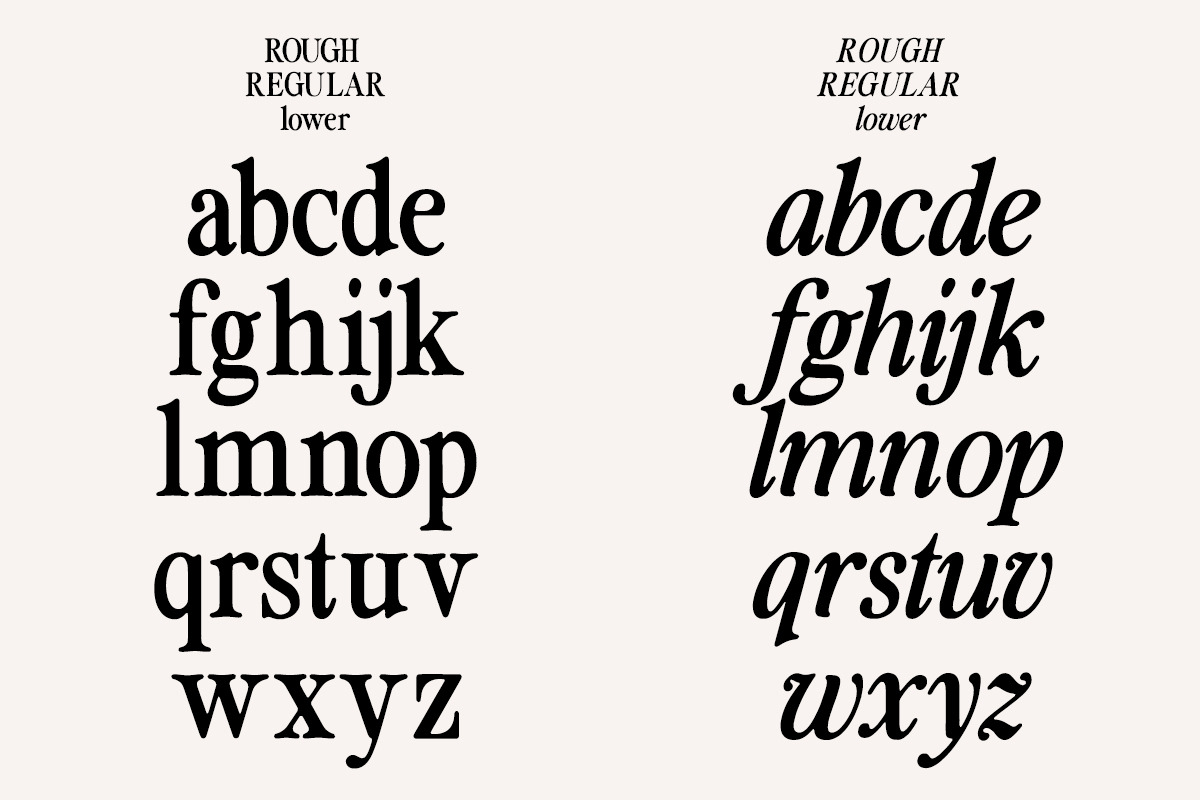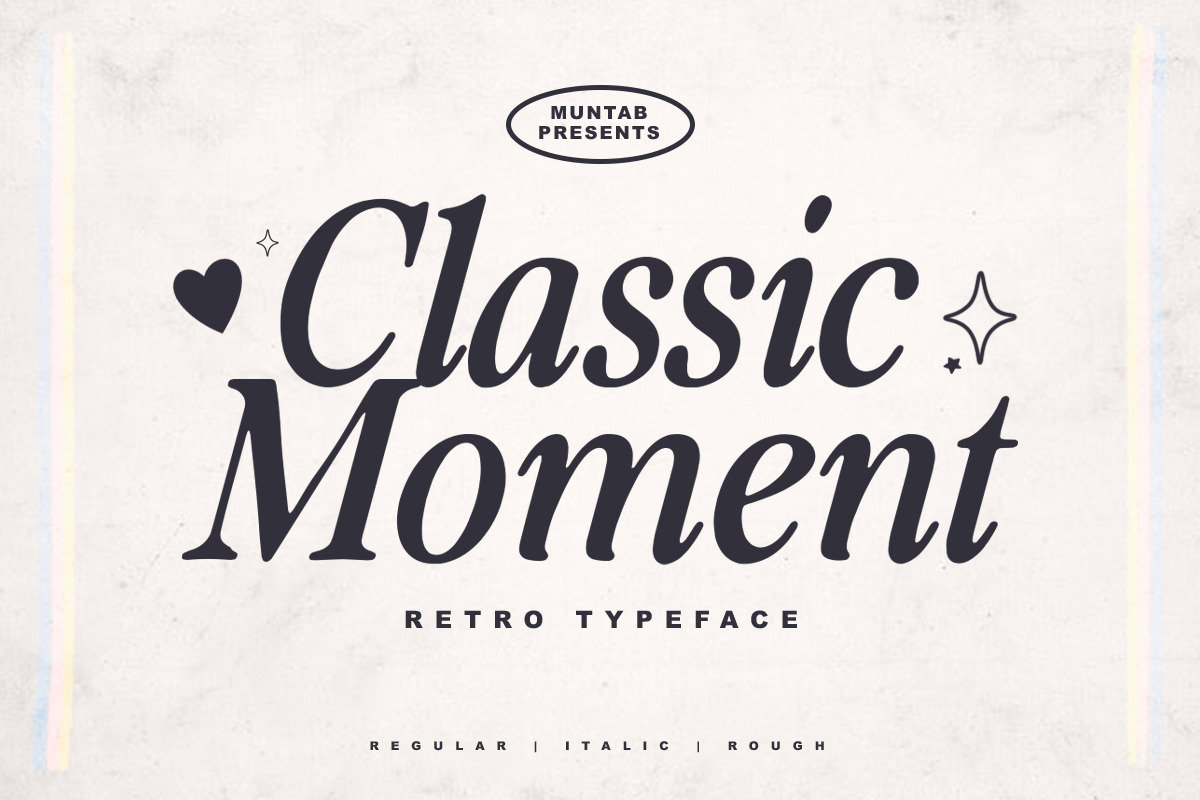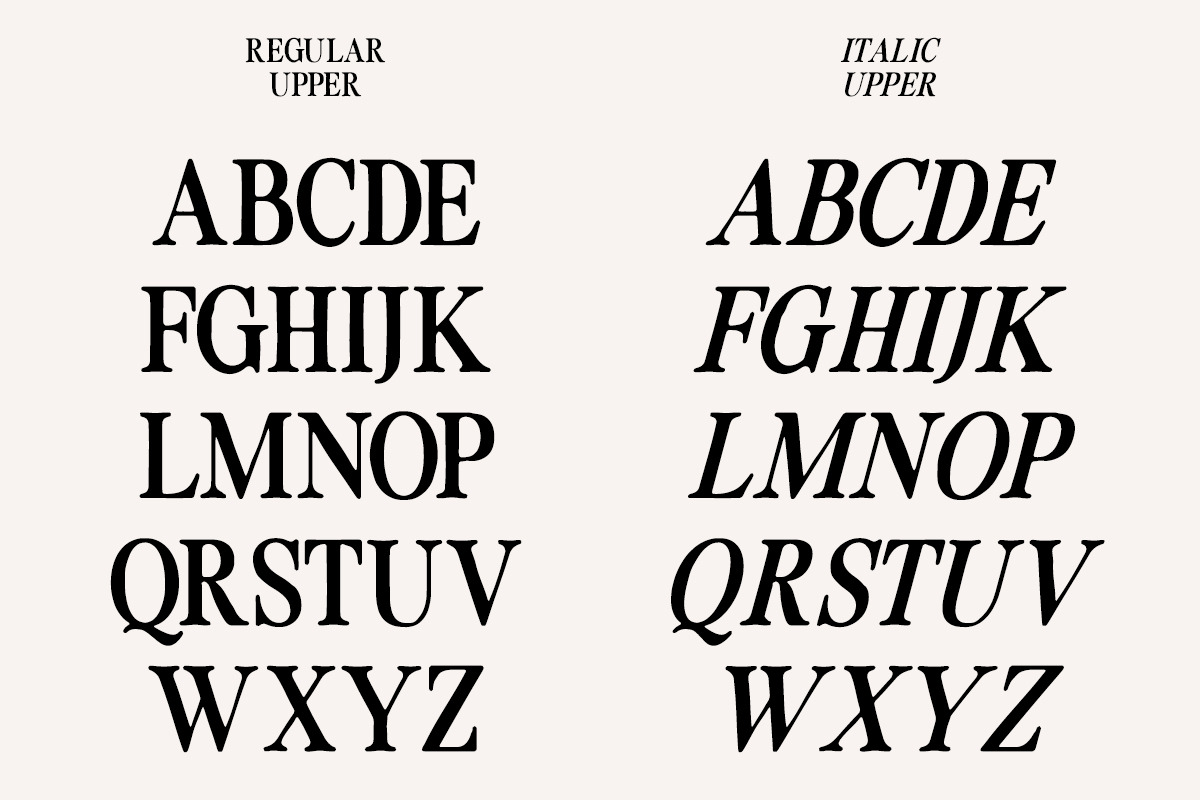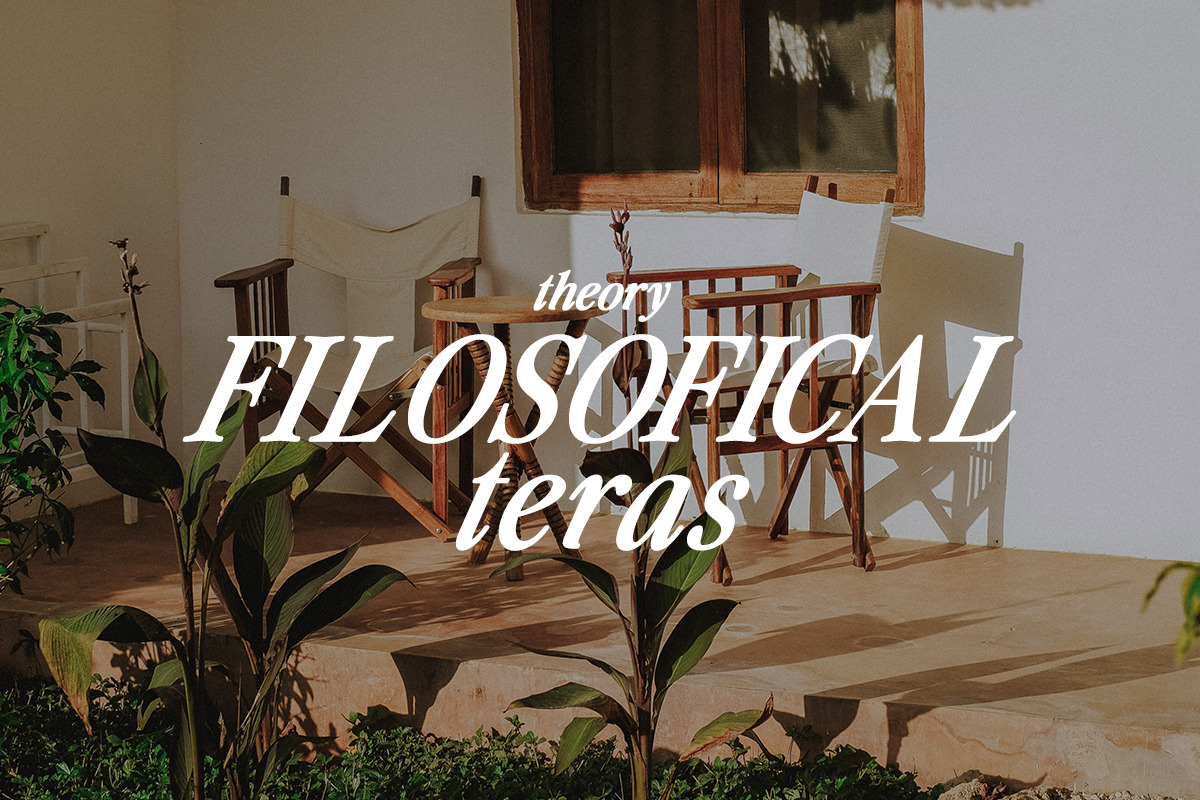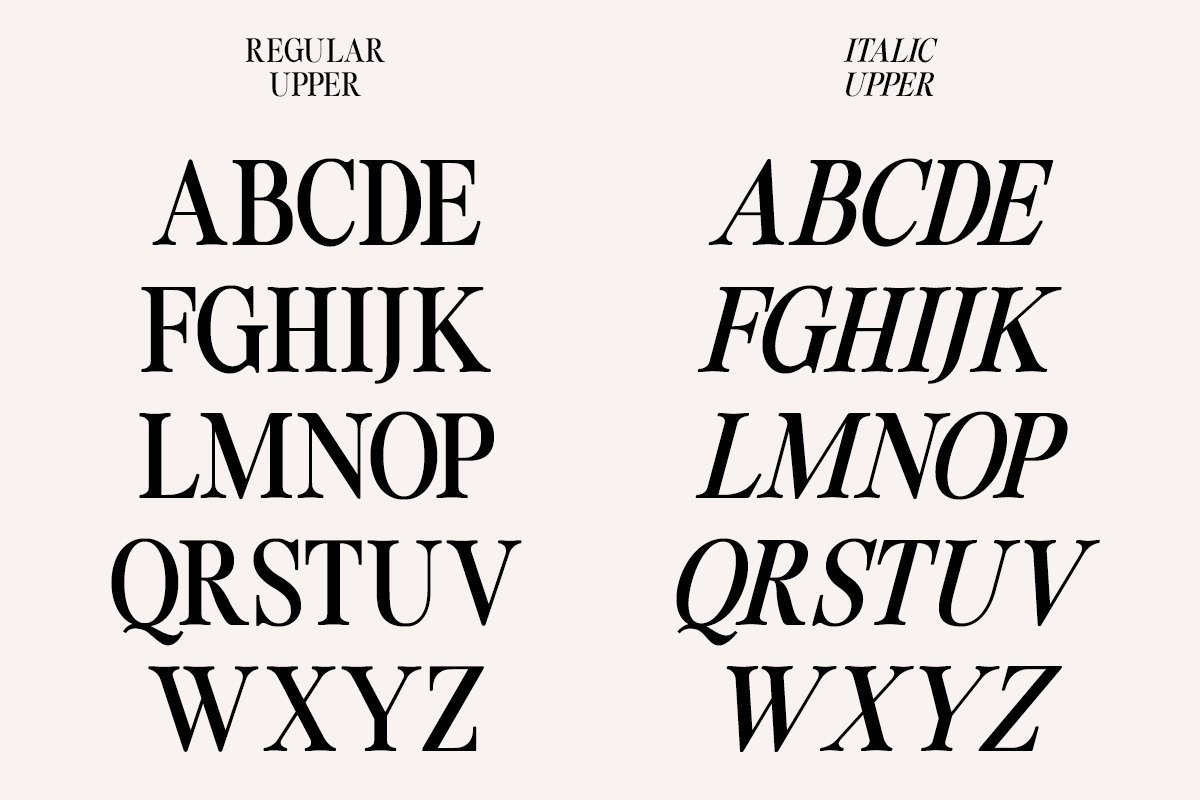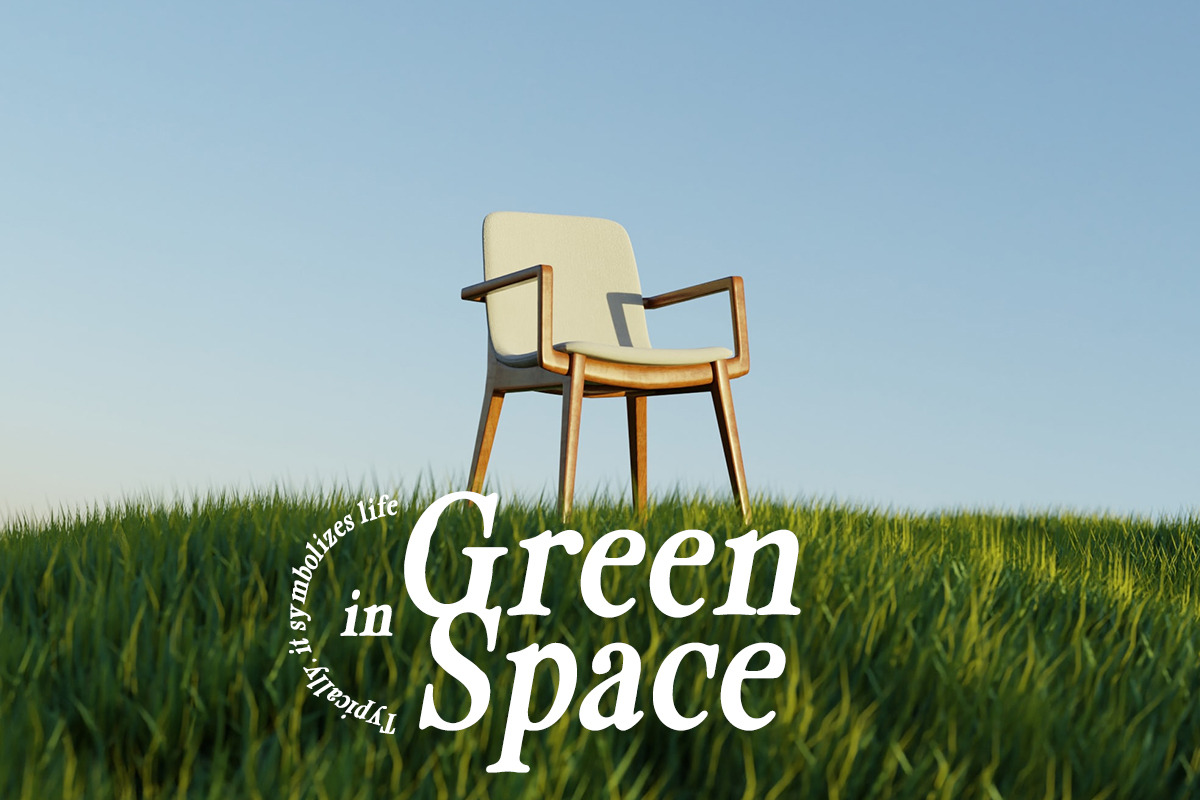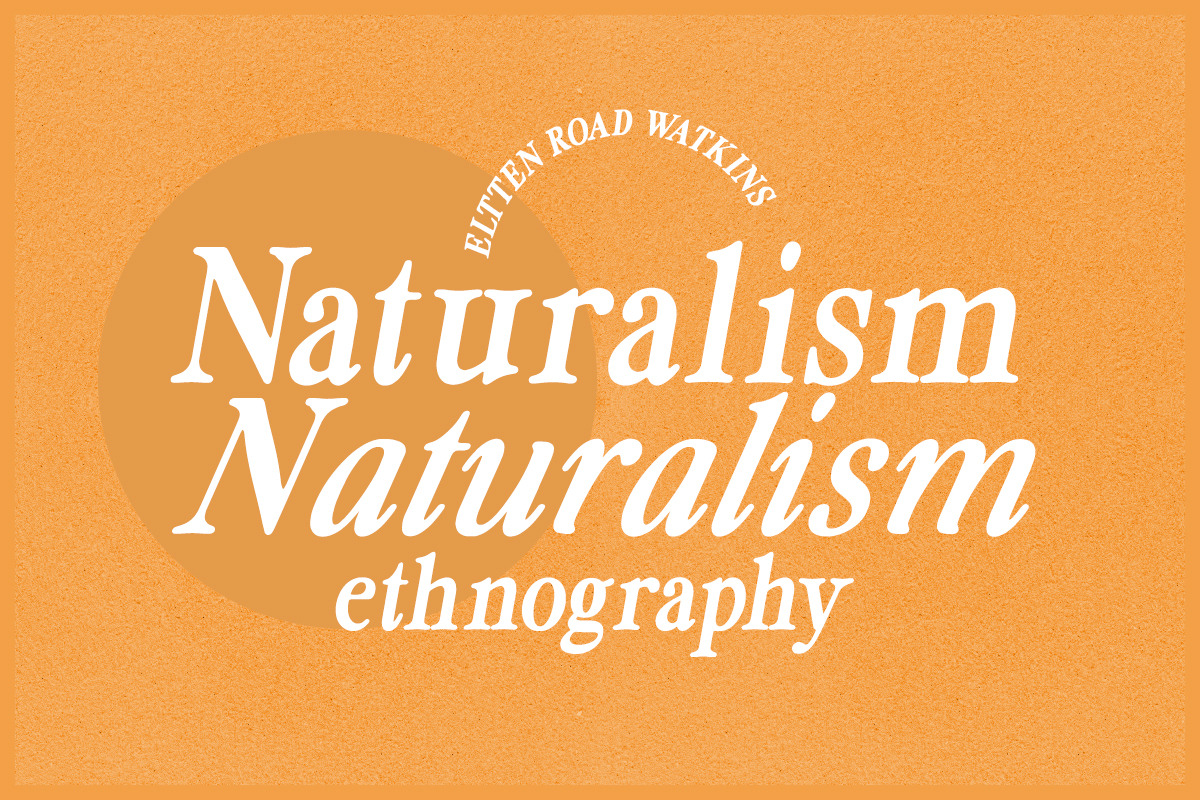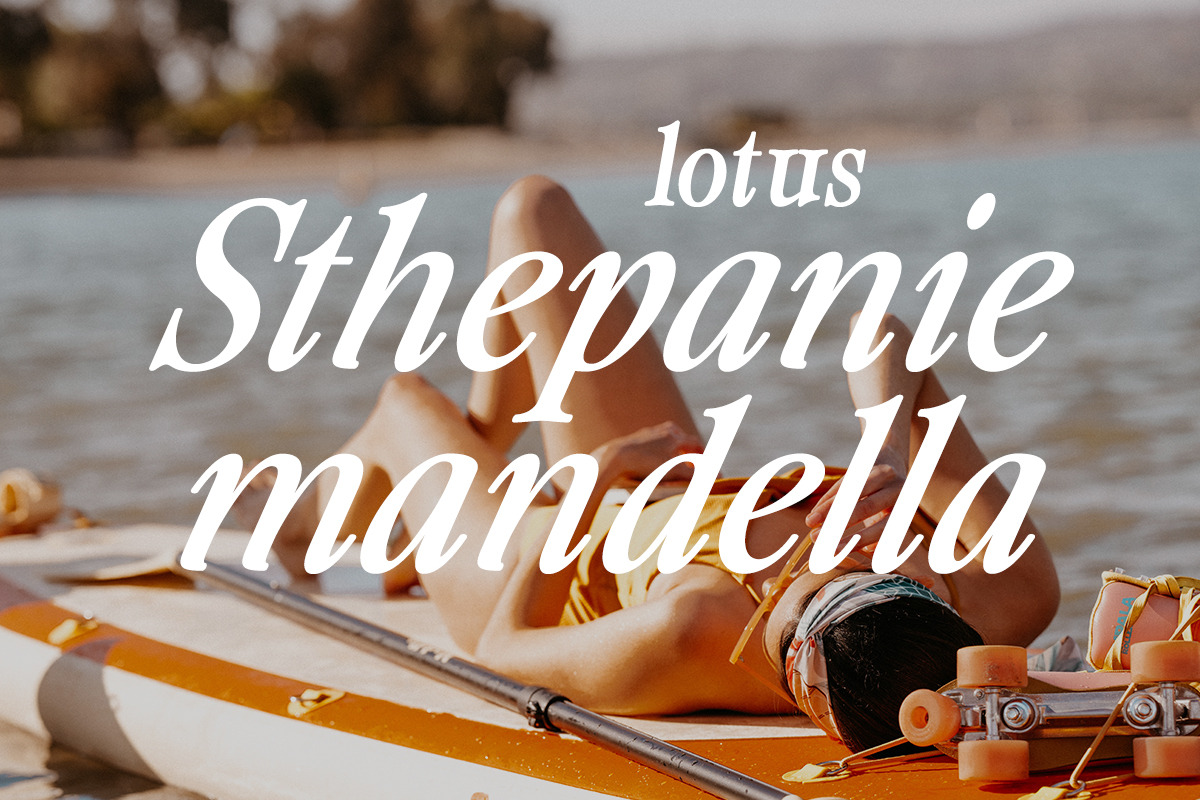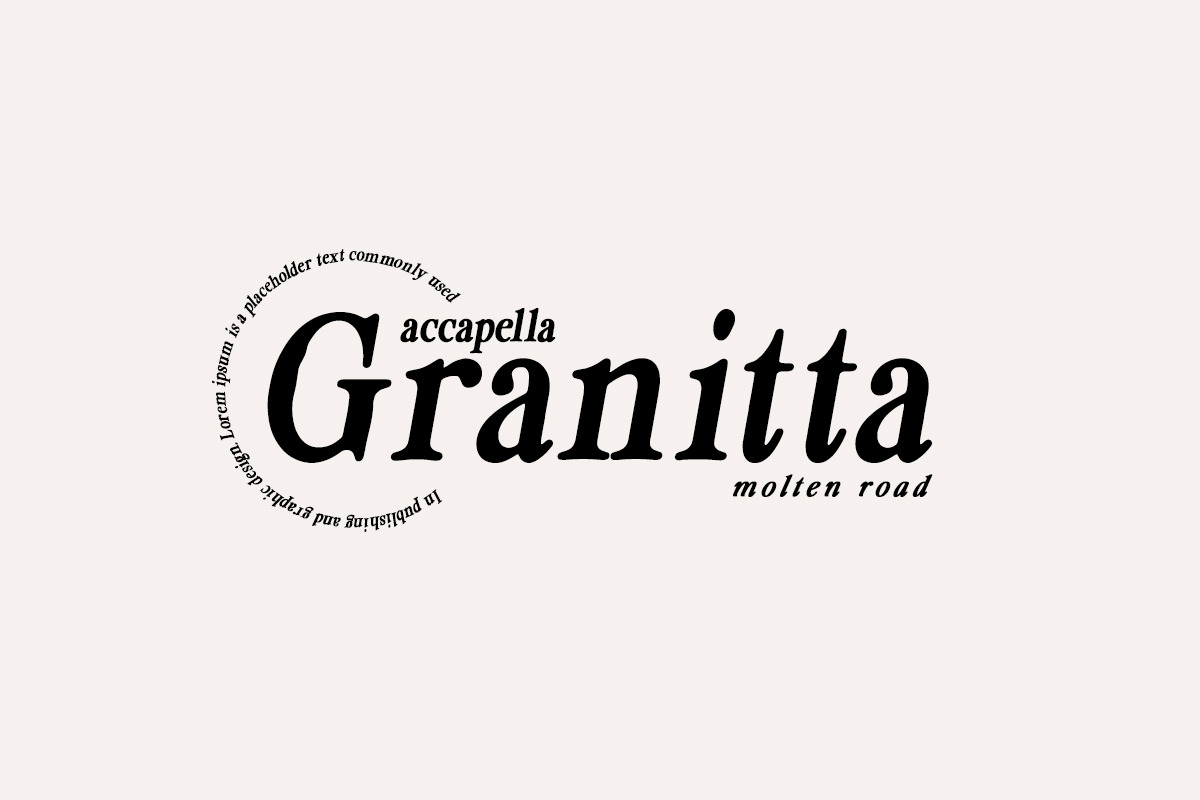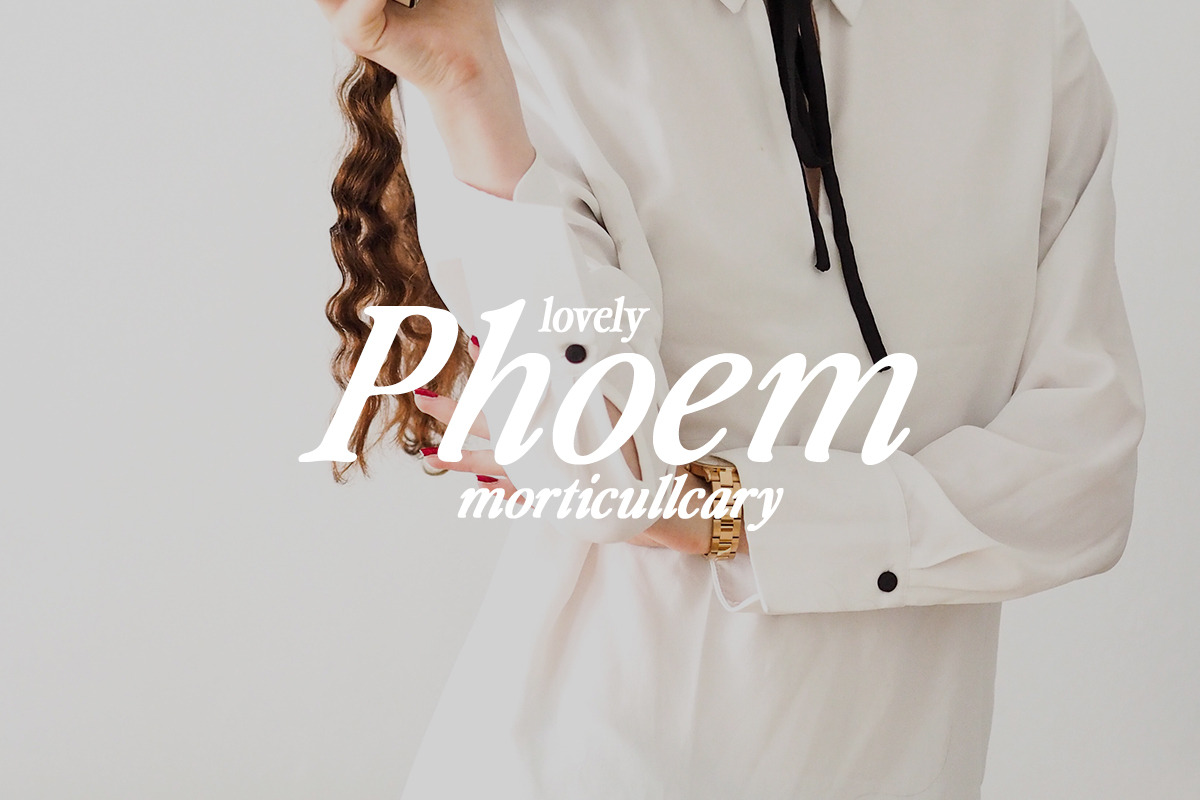
Classic Moment | Retro Typeface
Classic Moment fonts includes uppercase letters, lowercase letters, numerals, a large range of punctuation. Serif font with rertro style. Created for poster, web design, branding, illustrations, badges and some other works.